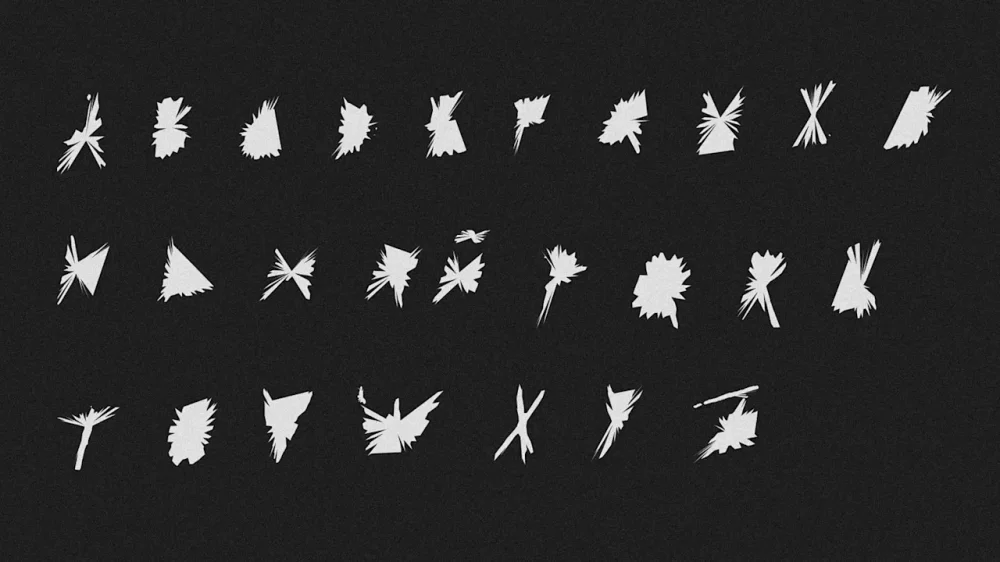
Claude can turn your handwriting into a font. Here’s how
One of the powers of the latest Claude AI model is that it can use any multiple external Python tools to perform complex tasks. And, as software engineer and AI expert Ashe Magalhaes has discovered, it turns out that the model can use these powers to build a Truetype font that you can install in your computer from any scanned page showing a full set of characters.
It’s a great, easy way to turn your handwriting into a font, but you can use it to create any typeface you can imagine as long as you have the adequate drawing skills. I tried it myself and it was pretty simple!
Before AI, you needed specialized tools like Calligraphr, HandFonted, or FontForge if you really want fine control. Now, if you have a free Claude account, you just need to ask nicely. Here’s how.
I first asked Claude to tell me if it could really transform my handwriting from a scanned paper into a typeface (sorry, Ashe, but you must never believe everything you see online). The AI, always its unbearably sycophantic self, told me, “What a fun project to do! Yes, I can help you” and then gave me the summary of how it was going to work.
It first offered me a template to print, so I could write down all the characters needed to make the font in a neatly ordered way—and gave me advice on how to scan the image (no shadows, no forced angles, no uneven lighting) for optimal results. You need your writing to be clear so its contour can be easily identified and traced by the AI, to transform it into the vector lines that form each character.
Since I haven’t owned a printer since the late 15th century, I told Claude that I have a paper with the alphabet all ready to go. So I uploaded a sample of purposely jagged writing that could have passed for the calligraphy of the sociopath from the movie Seven. “What a beautiful handwriting style! I can see you have a lovely italic/script feel,” it replied, before starting to process it.
Claude told me it didn’t have the font creation skill, but claimed it could do it with Python font libraries: “Let me set up the environment and process your image.”
What followed was a soliloquy of Claude discussing with itself and telling me how it was dealing with my scanned page, dividing the characters, trying to trace them, facing trouble, then trying to trace them again, segmenting the results, assembling the font, and some other stuff. After a few minutes of this, it finally handed me the .TTF file.
Excitedly, I dropped into macOS’ Fontbook just to discover it was all mangled. Each glyph looked like an ink blotch that vaguely reminded me of the original letter.